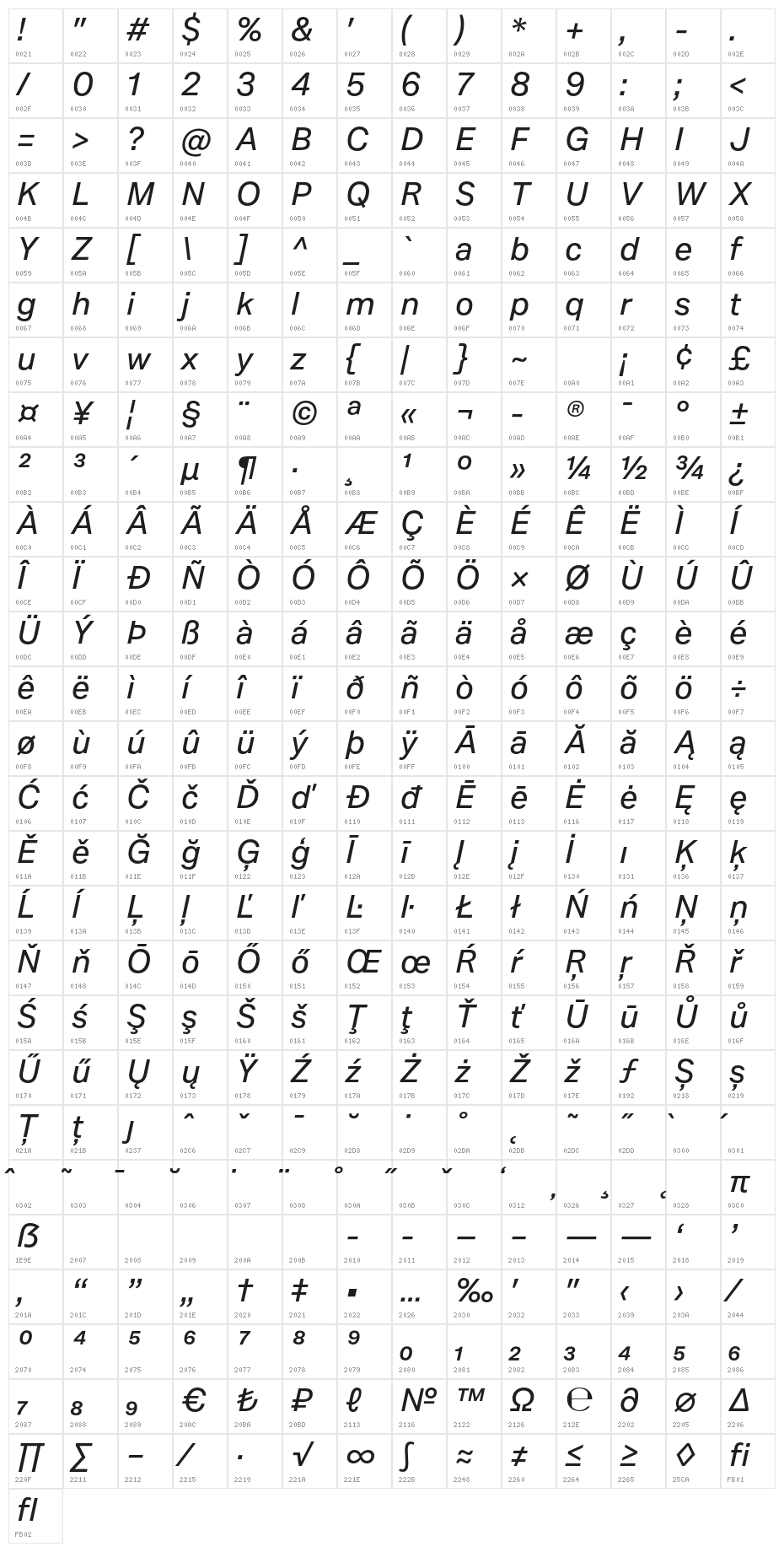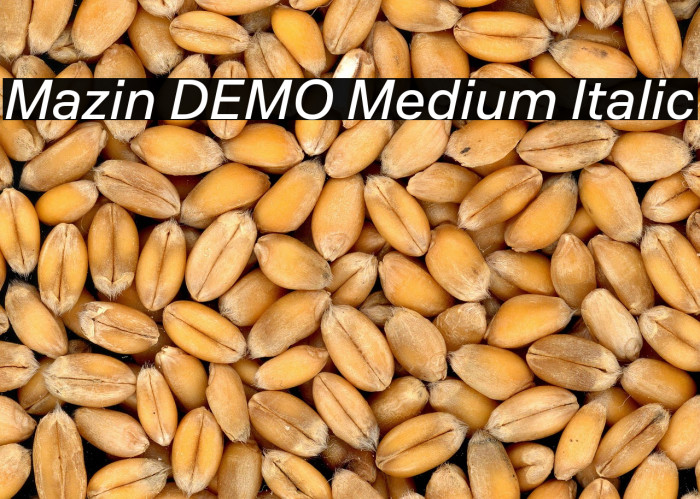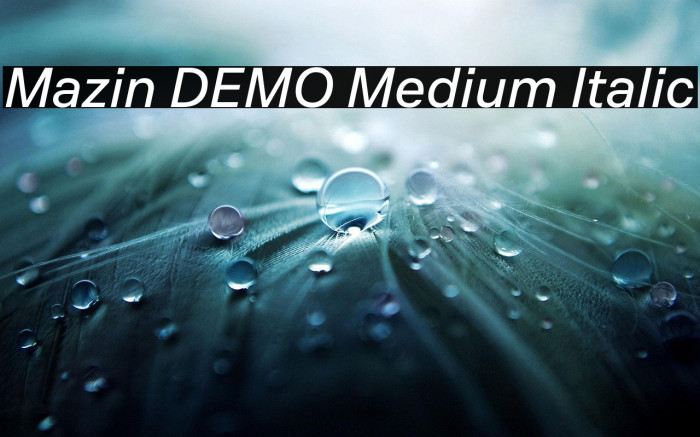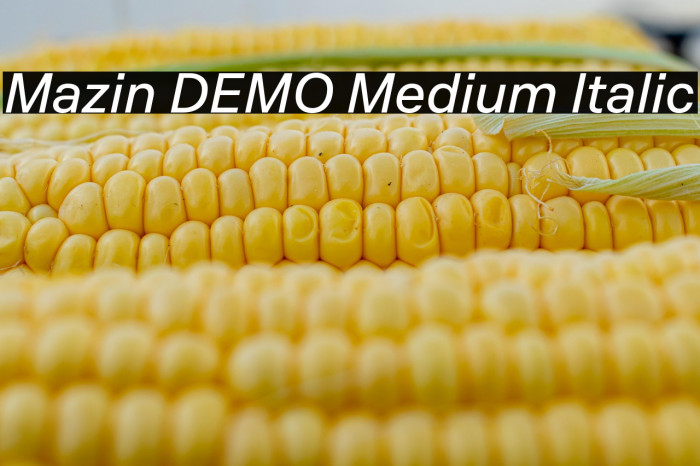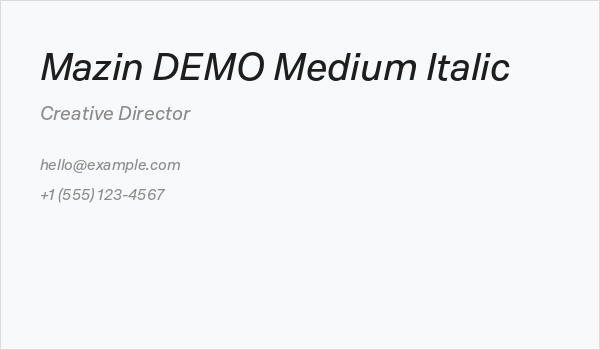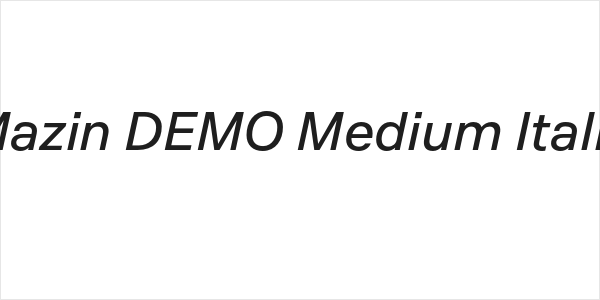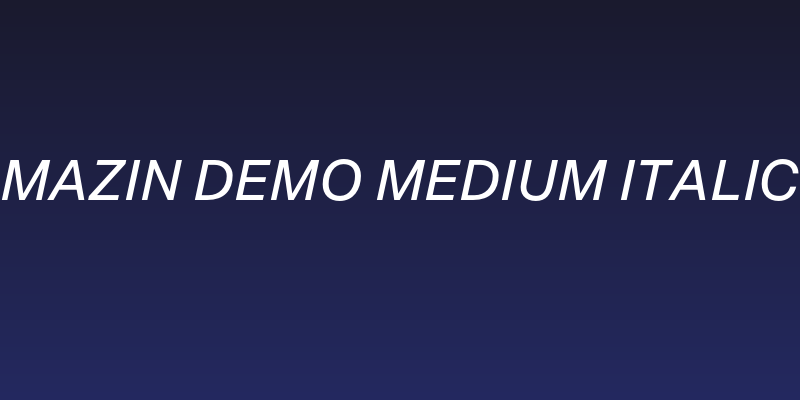
Mazin DEMO Medium Italic Font
Mazin DEMO Medium Italic Description
This font features a sleek, modern design with a slight italic slant, giving it a dynamic and forward-moving appearance. The characters are well-proportioned with a consistent stroke width, providing a clean and professional look. The uppercase and lowercase letters maintain a harmonious balance, while the numerals are clear and easily distinguishable. Special characters are included, making it versatile for various applications. The overall style is contemporary, suitable for both digital and print media.
| Proposed Projects | Ideal for branding, advertising, and editorial design, as well as digital interfaces and websites. |